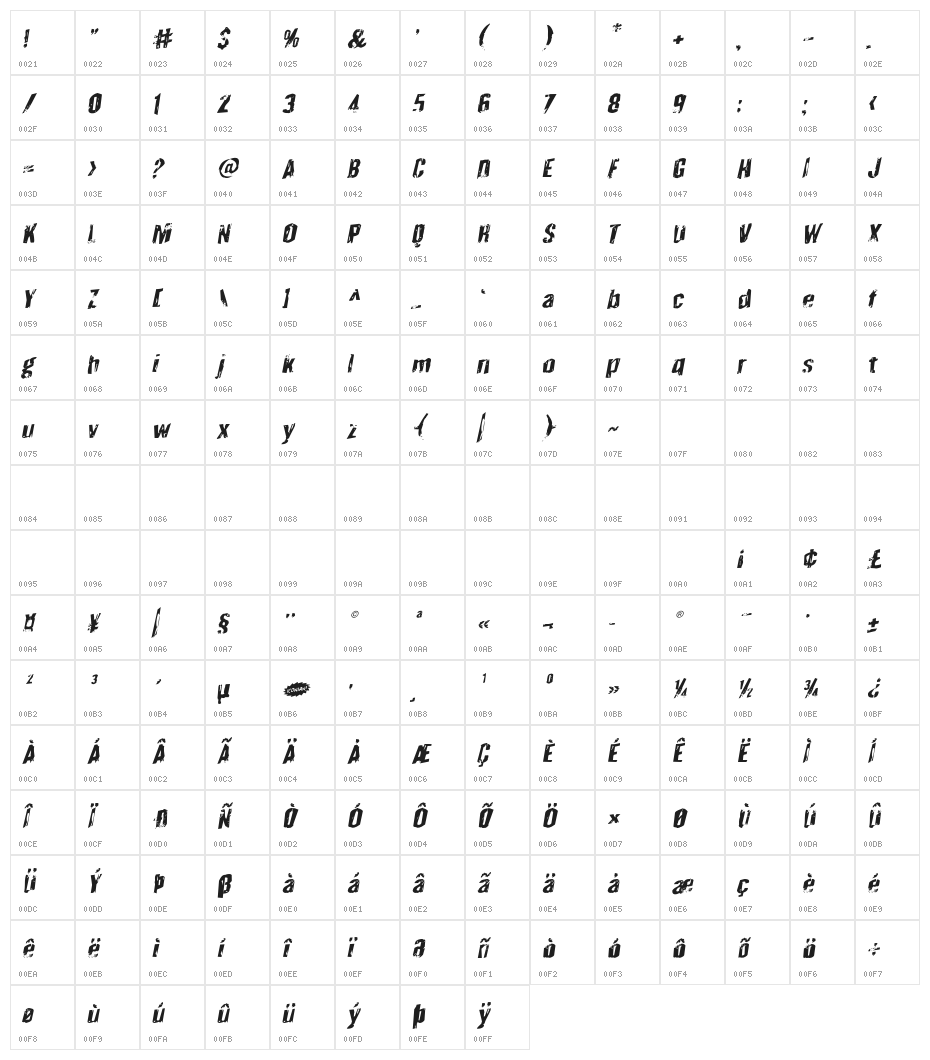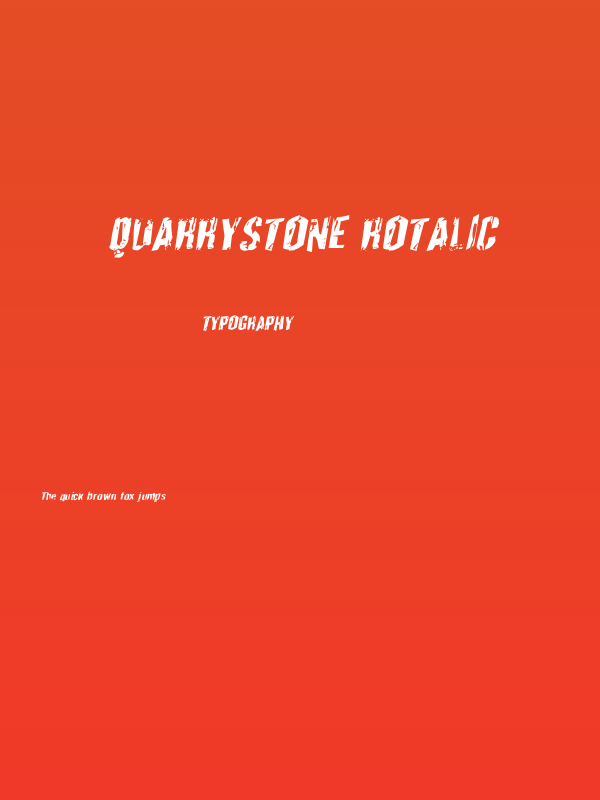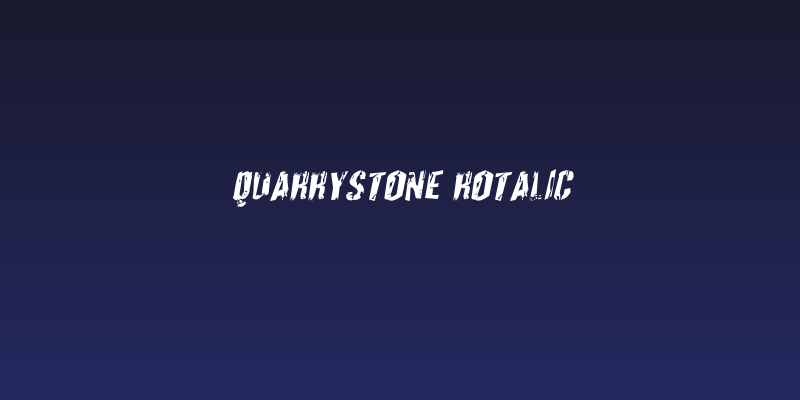
Quarrystone Rotalic Font
Quarrystone Rotalic Description
This font features a bold and distressed style, characterized by rough, textured edges that give it a grunge and worn appearance. The letters are slightly slanted, adding a dynamic and energetic feel. The uppercase and lowercase letters maintain a consistent design, with jagged and uneven strokes that create a sense of movement and chaos. Numbers and special characters follow the same distressed aesthetic, making the font suitable for projects that require a raw and edgy look. The overall design is eye-catching and impactful, perfect for making a bold statement.
| Overall Style | Grunge, Edgy, Dynamic |
| Proposed Projects | Ideal for album covers, posters, urban-themed designs, and branding that requires a gritty, edgy look. |